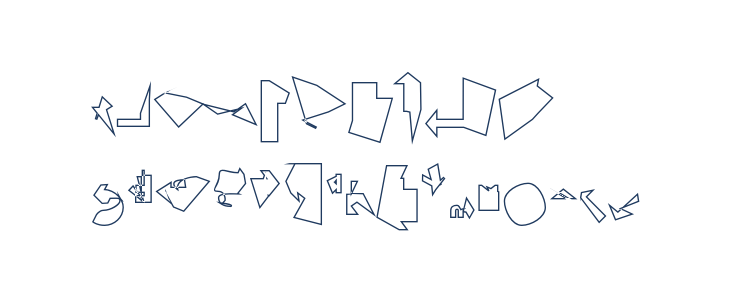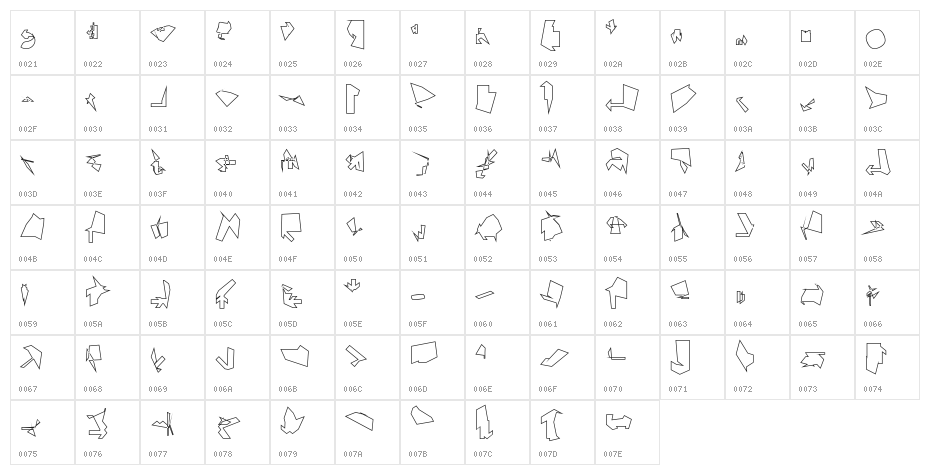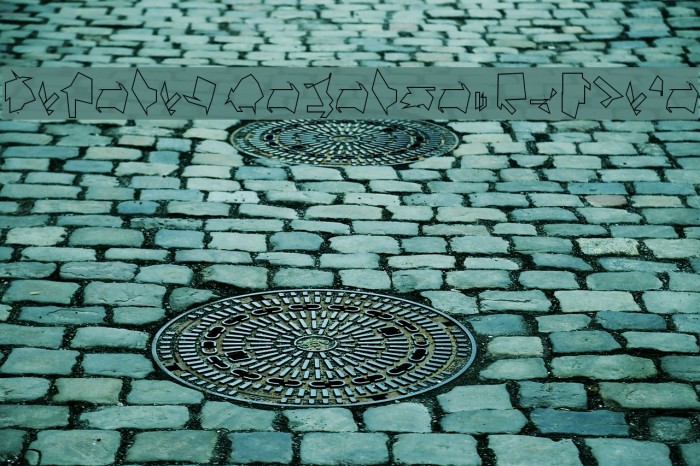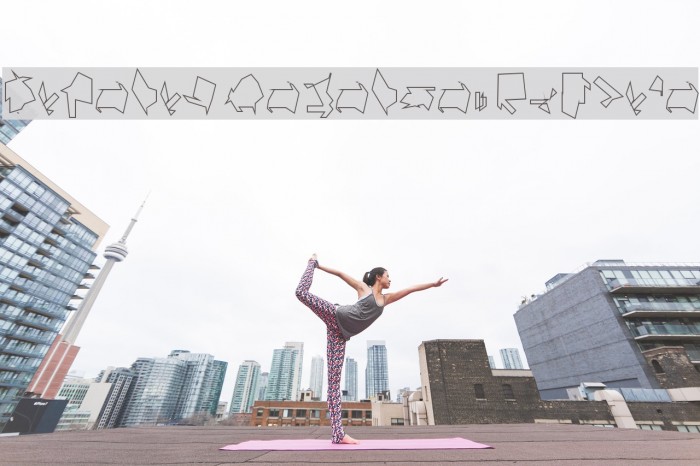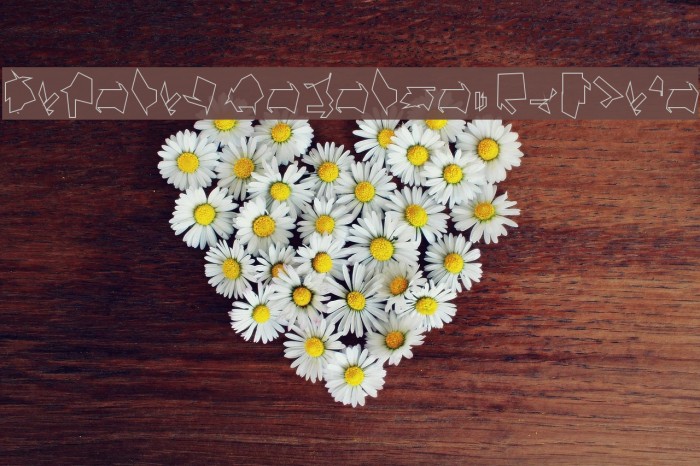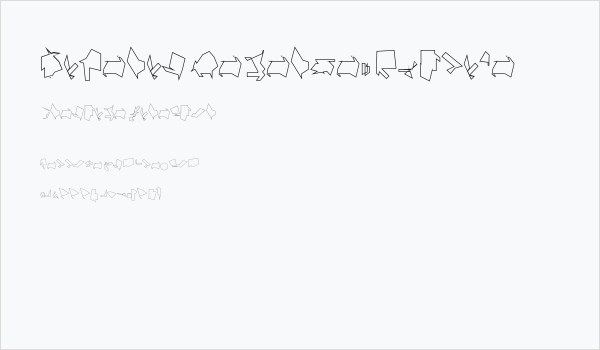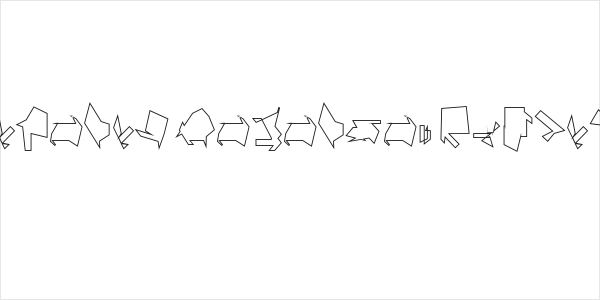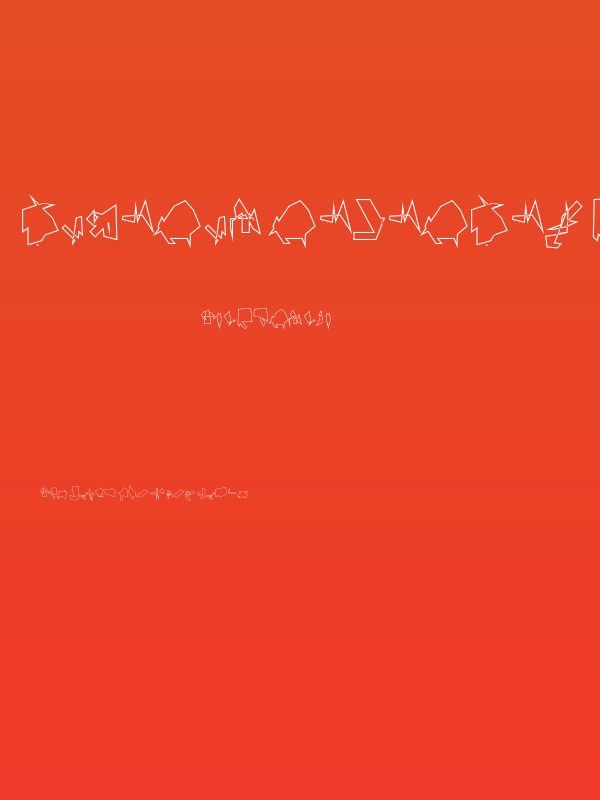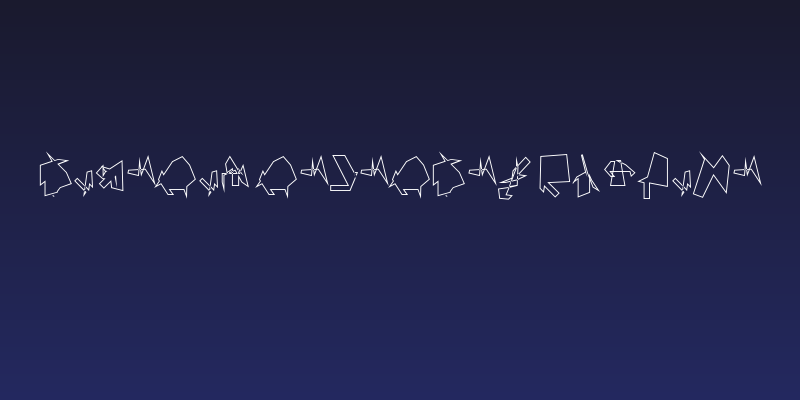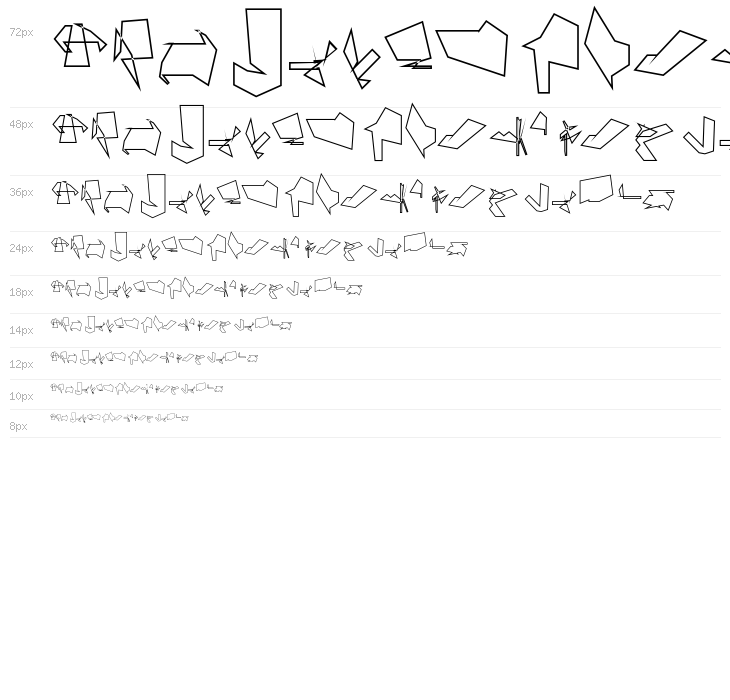
Siberia Reversed Outline Font
Siberia Reversed Outline Description
This font presents a highly abstract and geometric style, characterized by its sharp angles and irregular shapes. Each character is uniquely designed with a combination of straight lines and pointed edges, creating a fragmented and deconstructed appearance. The outlines are bold and prominent, giving the font a striking and unconventional look. The overall design is reminiscent of modern art, with a focus on asymmetry and dynamic forms. This font is not suitable for traditional readability but serves as an artistic expression, making it ideal for creative and avant-garde projects.
Overall StyleModern, Abstract
Use CaseLogos, Artistic displays, Experimental design
Proposed ProjectsIdeal for artistic projects, modern art installations, experimental graphic design, and avant-garde branding.